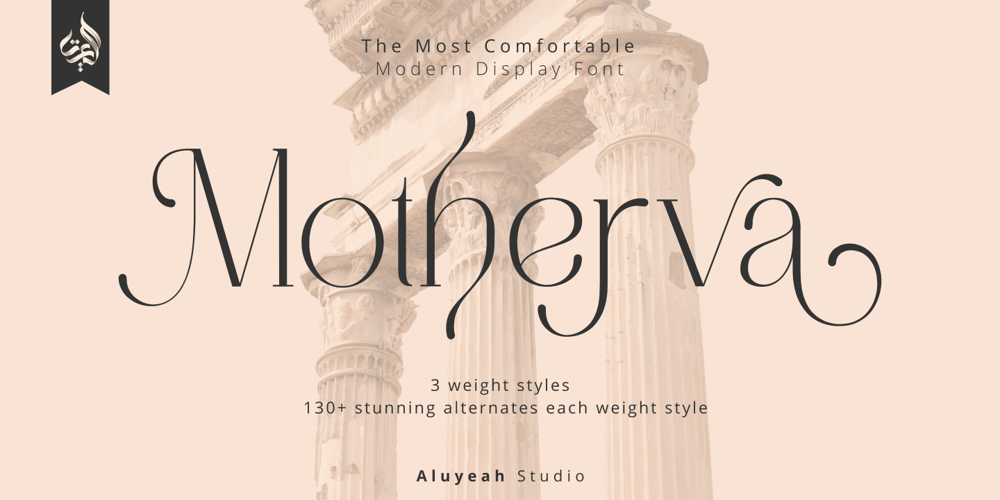
Al Motherva
Al Motherva font
Al Motherva Font Family was designed by Linggar Sundoro and published by Aluyeah Studio. Al Motherva contains 3 styles and family package options. Motherva, the most comfortable modern display font. Coming with 3 weight style. 130+ stunning and super easy to use alternates for each weight style. Very suitable for magazine, headline, website, ads, product package and all type of design project you have. Features:OpenType supportMultilingual support (15 languages)PUA EncodedSuper Easy to Use alternates – It’s OpenType support but you can easily call alternates character using special combination like A.2 R.3 h.6 etc. so you don’t need special software. To get results like the preview just type M.5oth.6er.2v.2a.4Thanks for checking out my font. I really hope you enjoy using it!